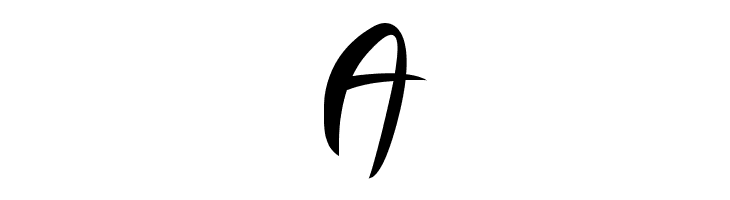
A bold, Gothic-inspired font with sharp, angular edges and decorative serifs.
A bold, expressive script font with a flowing, cursive style.
A bold, artistic font with layered strokes and a dynamic, textured appearance.
A graceful and flowing script font with elegant curves.
A flowing, elegant script font with smooth, connected strokes.
A casual, handwritten script font with fluid strokes and medium contrast.
A playful, rounded font with a hand-drawn, friendly appearance.
A futuristic, geometric font with bold, rounded letterforms and unique cutouts.
A futuristic, geometric font with outlined, hollow characters.
A futuristic font with a gradient line effect and geometric structure.
A classic serif font with a modern, elegant style and pronounced serifs.
A serif font with sharp, angular serifs and a medieval touch.
A sophisticated and elegant script font with flowing, cursive letters.
A bold, edgy font with a hand-drawn, jagged style.
A bold, whimsical font with bee illustrations atop each character.
A dingbat font with classic toy illustrations.
A decorative floral and leaf dingbat set with varied botanical silhouettes.
A bold, decorative font with dynamic radiating lines on each character.
A bold, brush-like script font with interconnected letters and a dynamic style.
A bold, hand-drawn font with an expressive and dynamic style.
A playful font with characters inside coffee cup silhouettes, perfect for coffee-themed designs.
A playful, monster-themed decorative font with bold, quirky characters.
A playful, hand-drawn outline font with a bold and whimsical style.
A whimsical, outlined decorative font with playful serifs and curves.
A playful, handwritten font with whimsical and irregular strokes.
A playful, hand-drawn font with whimsical, cartoonish elements.
A pictogram font featuring various transportation vehicles.
Holiday-themed bear illustrations as font glyphs.